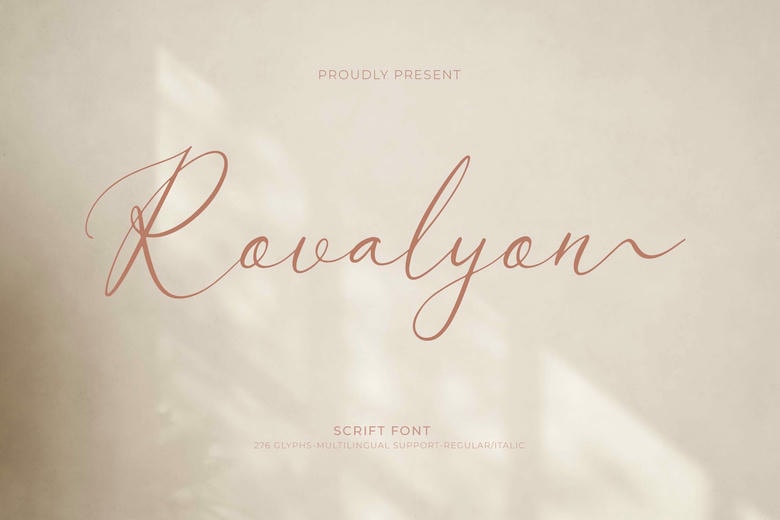
Rovalyon Font
Rovalyon is a script font that has a very handwritten and personal feel to it as if it was written by someone. Its letters are clear and they flow so well to give it a welcoming and cheerful look. Great for logos, wedding invitations, or any other design that you want to be unique but simple to read.
Rovalyon Handwritten Script Font